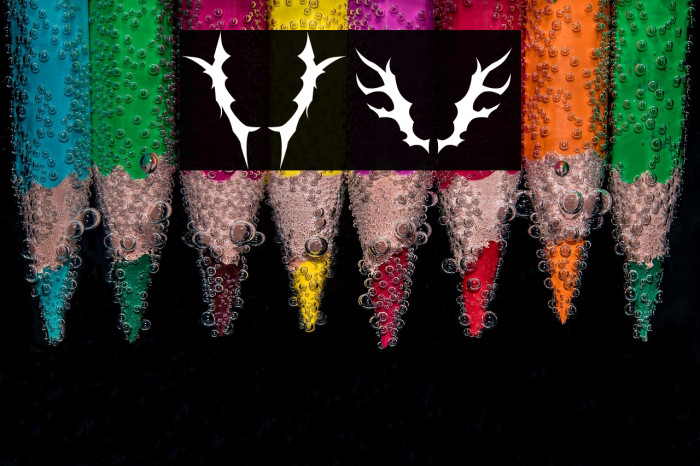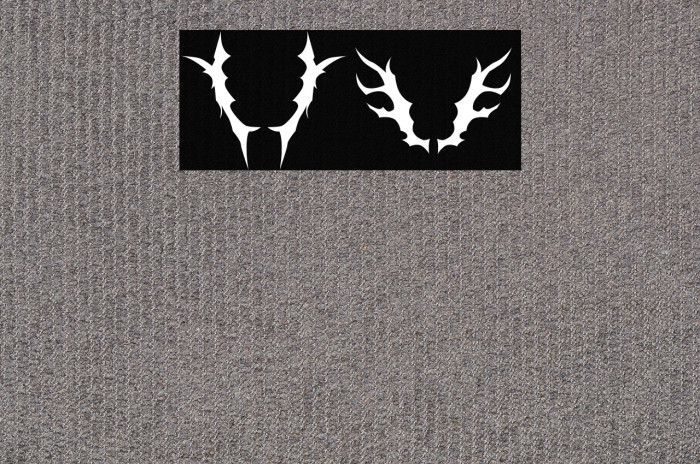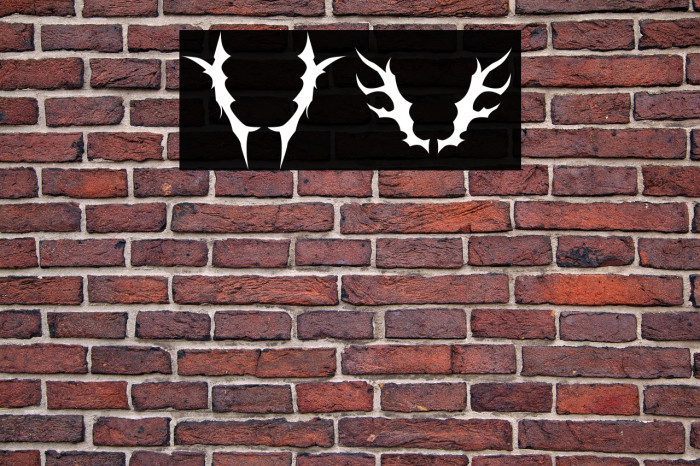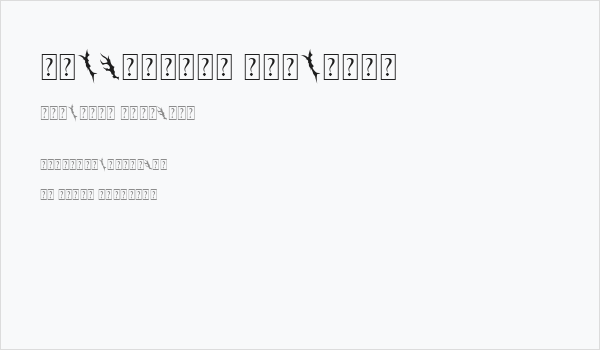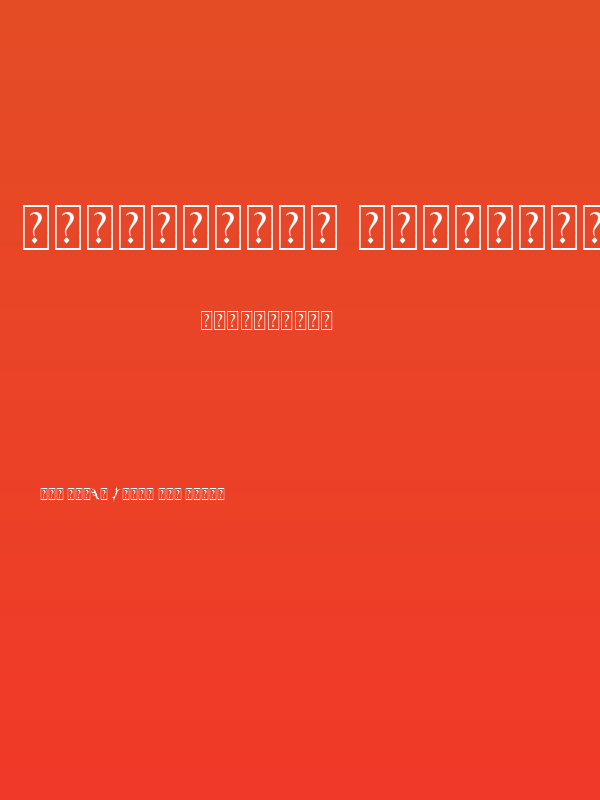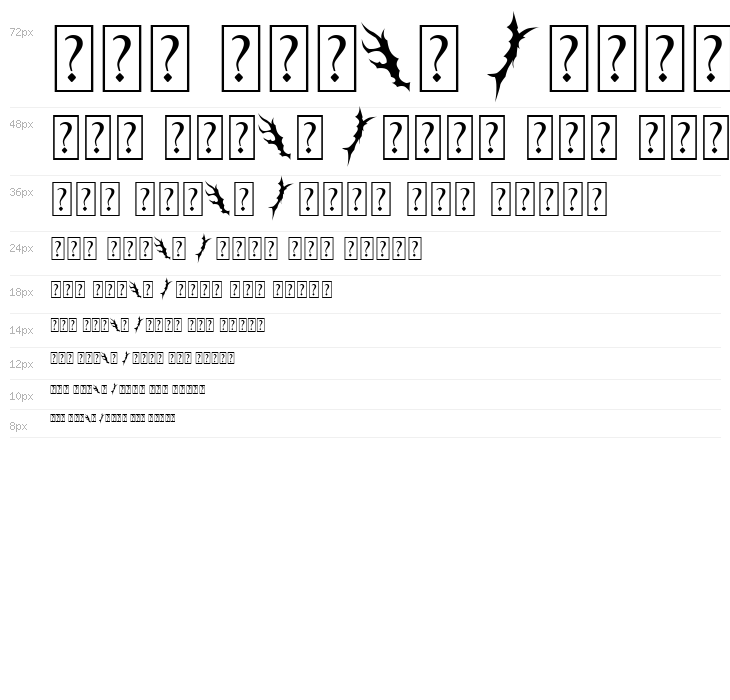
Blackthorn Ornament Font
Blackthorn Ornament Description
This font is characterized by its highly decorative and ornamental style, featuring intricate thorn-like designs that evoke a sense of mystery and elegance. The characters are embellished with sharp, pointed edges and swirling patterns, reminiscent of gothic or fantasy themes. The overall appearance is bold and striking, making it ideal for creating a dramatic visual impact. The font's unique aesthetic is perfect for projects that require a touch of the fantastical or the darkly romantic.
| Proposed Projects | Ideal for fantasy book covers, gothic-themed event invitations, or decorative posters. |